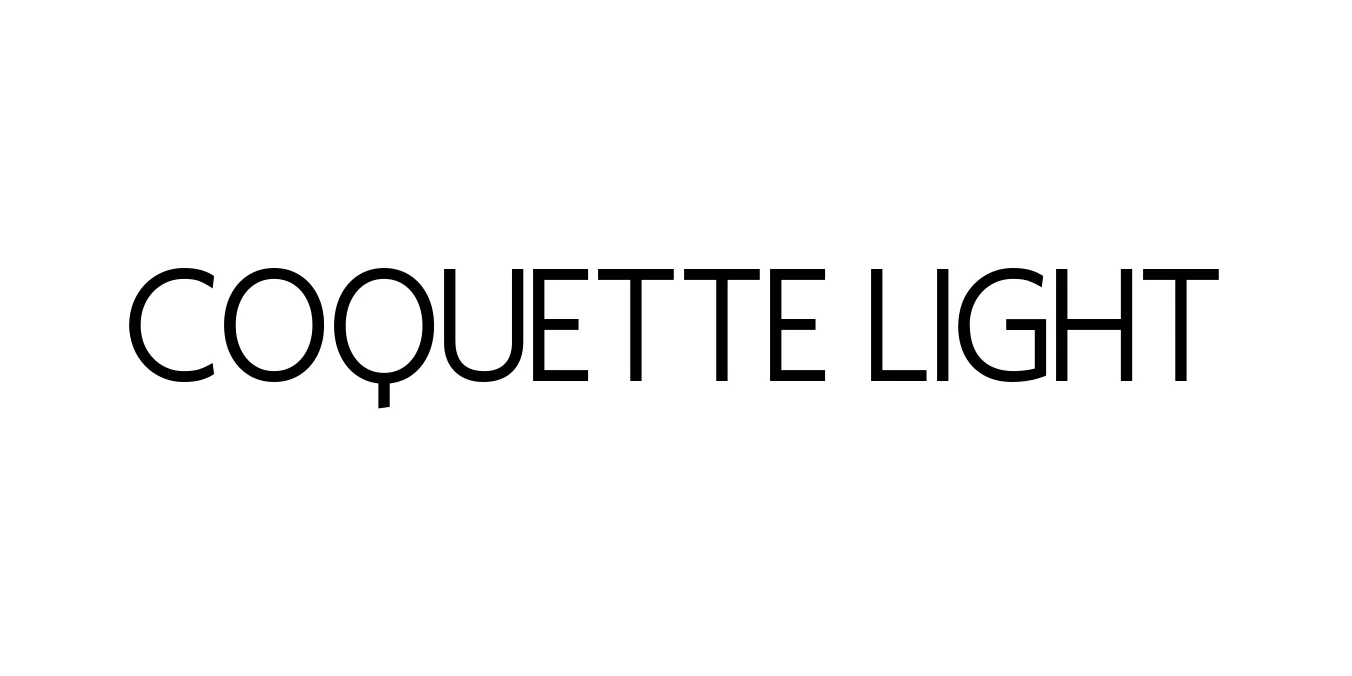
Coquette Light
Designed by Mark Simonson
Coquette Light is a sophisticated and charming typeface designed by the renowned type designer Mark Simonson in 2001. It represents a unique hybrid of French script and monolinear geometric styles, blending 1930s-style elegance with a clean, modern execution. The light weight of this family particularly emphasizes its delicate curves and airy feel, making it a standout choice for designers who require a script that is both legible and decorative.
The font was inspired by vernacular signage and mid-century advertising lettering. Simonson’s objective was to create a typeface that felt nostalgic yet fresh, avoiding the overly ornate flourishes of traditional calligraphy. Coquette Light features an upright posture and rhythmic, connected strokes, providing a distinctive silhouette that works beautifully for high-end display purposes and branding projects.
Coquette Light Best Uses
Adds a sophisticated and delicate touch to formal stationery and announcements.
Ideal for luxury boutique logos, high-end cosmetic packaging, and fashion labels.
Excellent for creating elegant quote graphics and minimalist visual storytelling.
Perfect for decorative headings and stylish pull-quotes in lifestyle magazines.